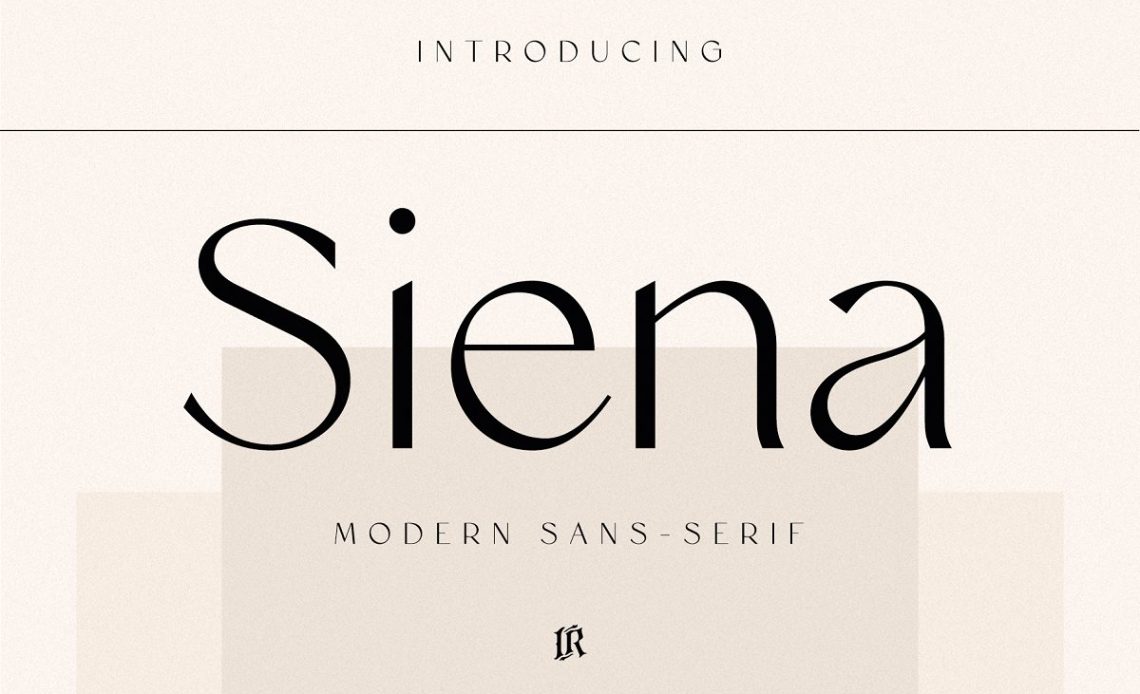
Introducing the Siena Typeface, a modern sans-serif font that will take your design projects to the next level. Created by the talented Ivan Rosenberg, this font is inspired by the fashion industry, bringing a touch of elegance and sophistication to any design.
Siena Typeface is perfect for both display sizes and text, ensuring that your message is easily readable and visually striking. Whether you're working on headlines, titles, advertising, fashion mood boards, branding, logotypes, packaging, editorial design, or modern social media posts, Siena has got you covered.
What sets Siena apart is its versatility and adaptability. With stylistic alternates and ligatures, this font allows you to create unique and eye-catching designs effortlessly. Imagine the possibilities when you have access to a wide range of glyphs and characters that can be seamlessly integrated into your projects.
Not only is Siena Typeface visually stunning, but it also supports a multitude of languages. From Abenaki to Zulu, this font ensures that your message can reach audiences all over the world. No matter the language, Siena Typeface will maintain its elegance and legibility, making it a must-have for global brands and designers.
With Siena Typeface, your designs will exude professionalism and style. Stand out from the crowd and captivate your audience with this exceptional font. Whether you're creating a sleek logo, designing a captivating advertisement, or crafting a stunning editorial layout, Siena Typeface will elevate your work to new heights.